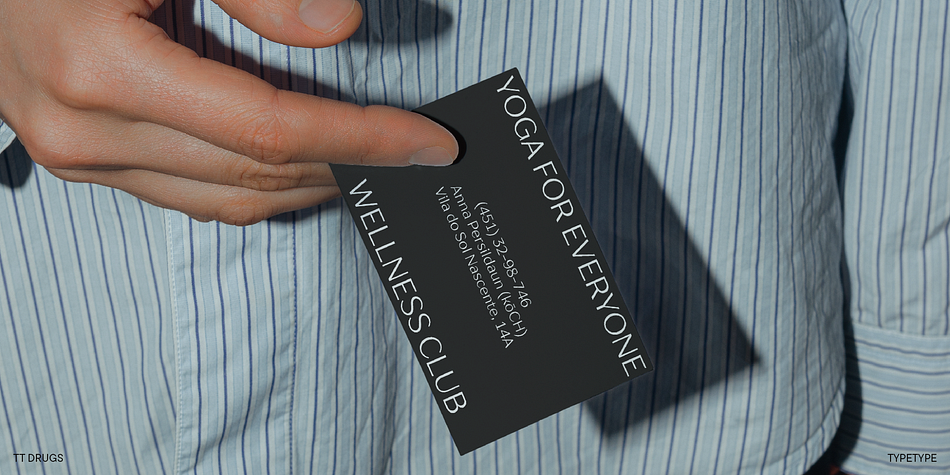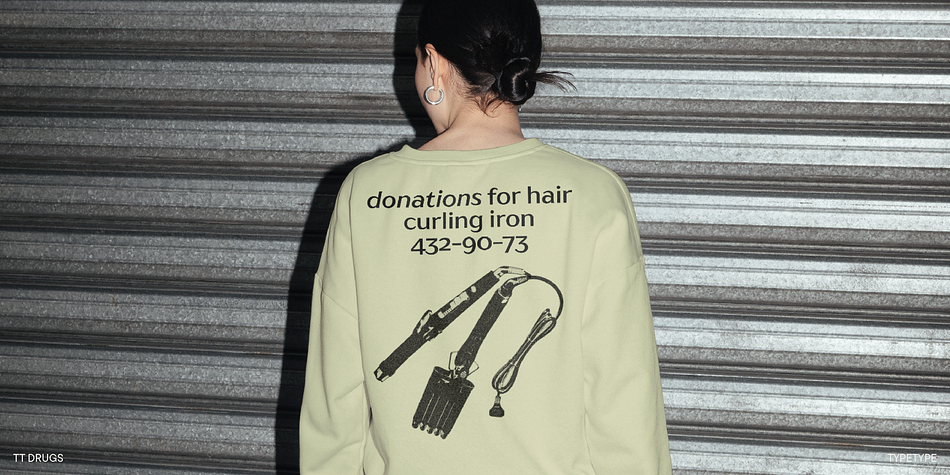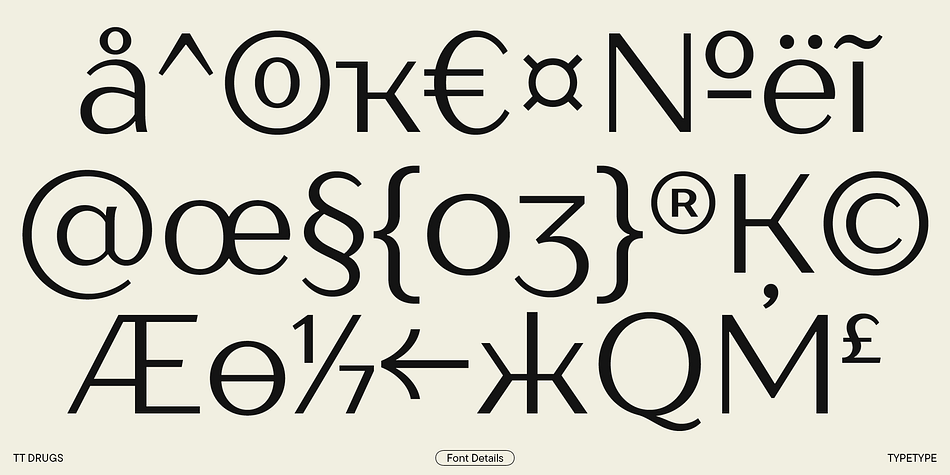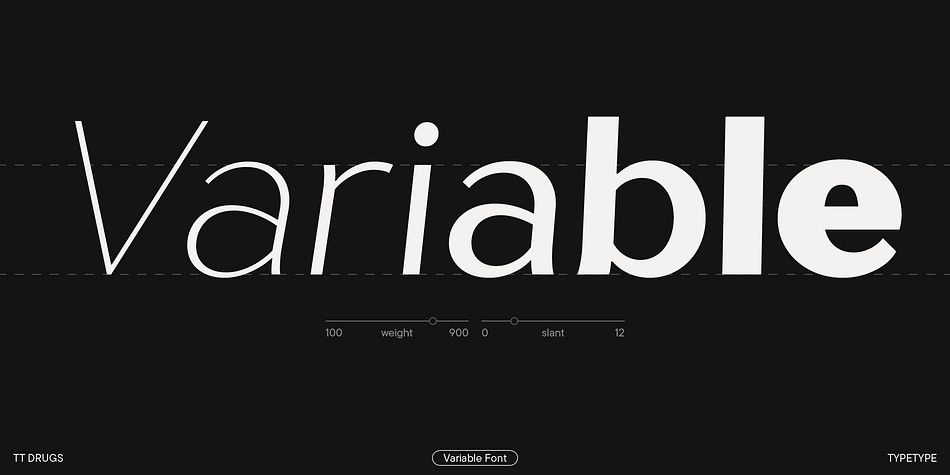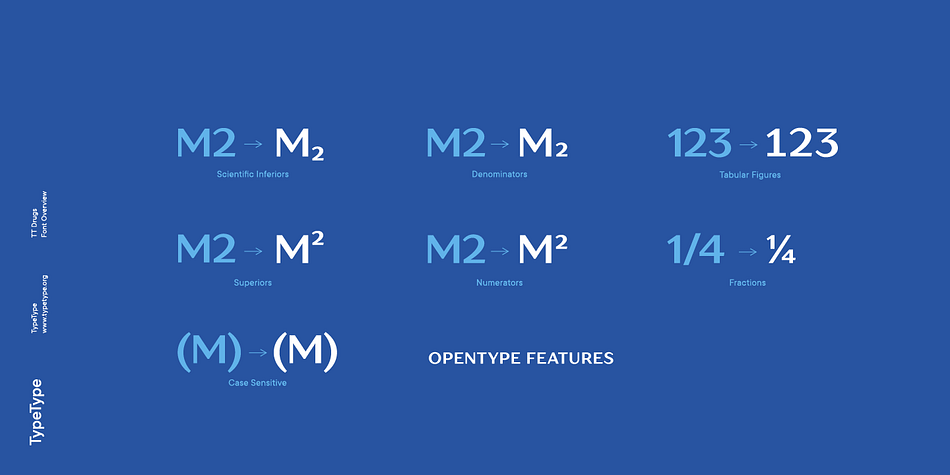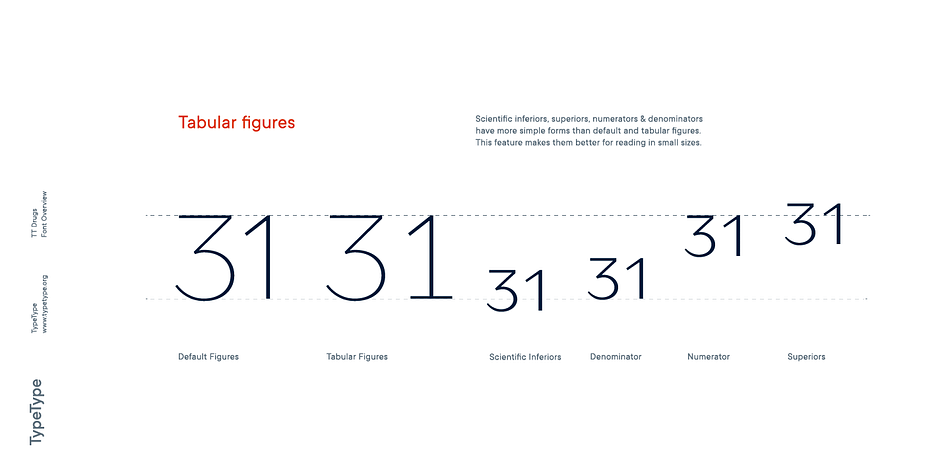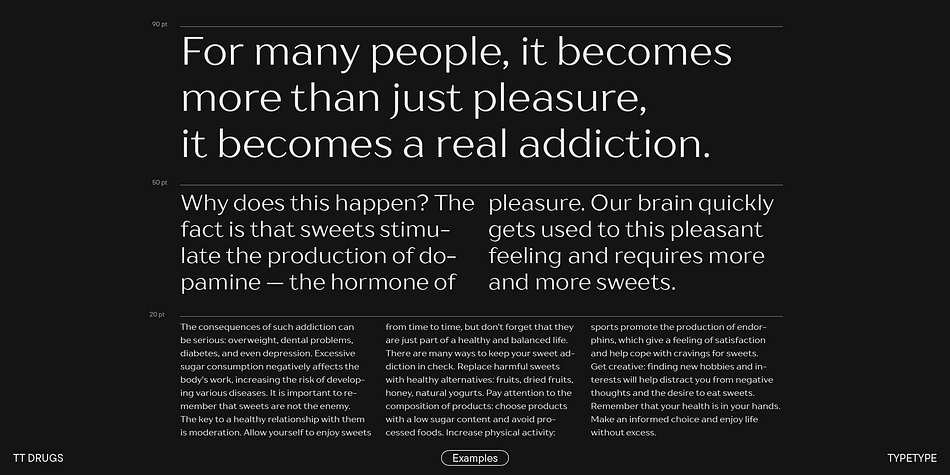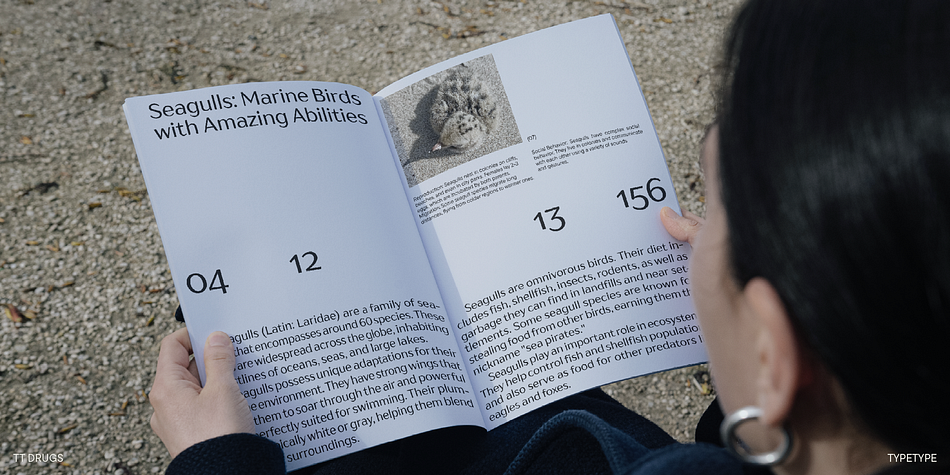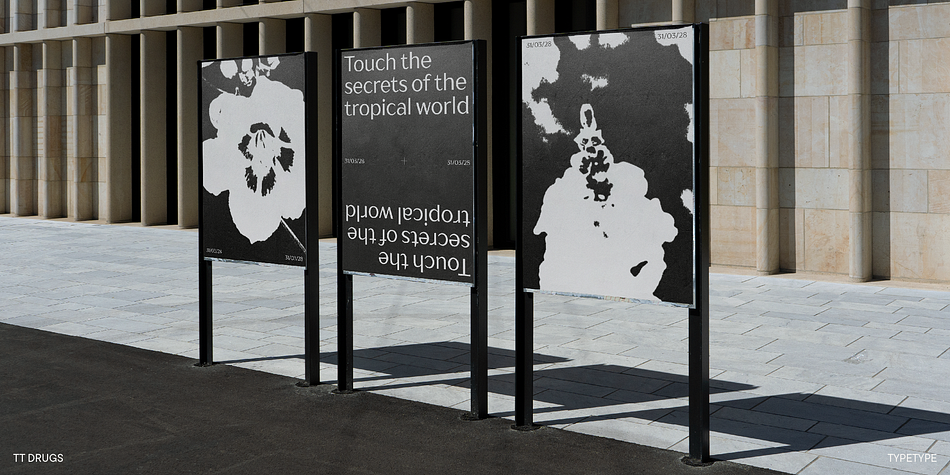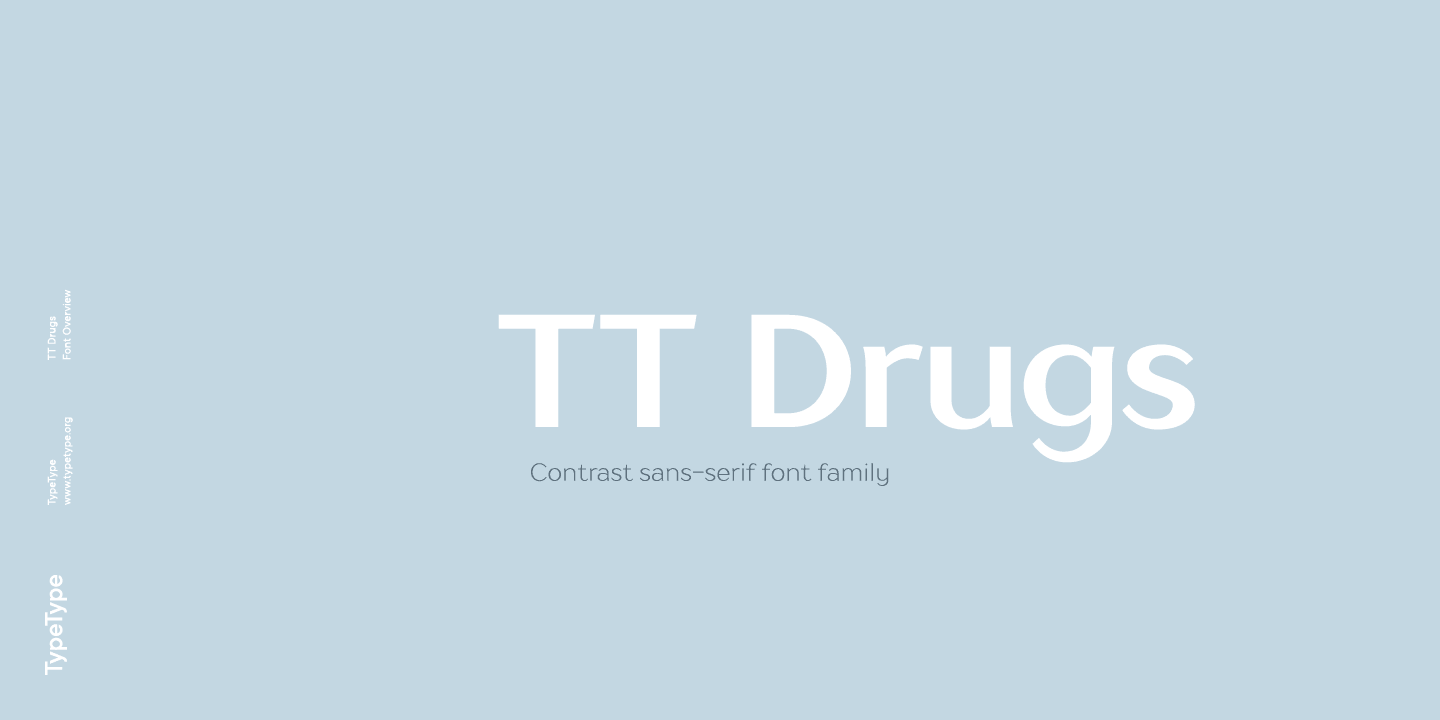
Designed by Ivan Gladkikh, TT Drugs is a sans serif font family. This typeface has ten styles and was published by Typetype.
TT Drugs update 1.1
What’s new.
• Case Sensitive Forms
• Tabular Figures
• Fractions
• Numerators
• Denominators
• Superiors
• Scientific Inferiors
Font family TT Drugs—fonts that are specifically designed for the pharmaceutical industry and for household chemicals. Than to make a text layout for package of any medicine, toothpaste or laundry detergent? The answer is—Drugs. Font family has a range from thin to black font and can be used on any surface: paper, cardboard, metal, glass and others.
Optimized for the websites, mobile applications, and printing materials.